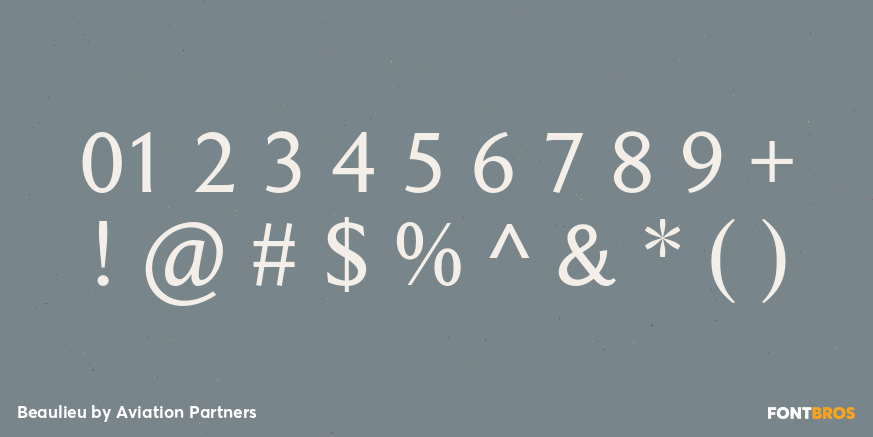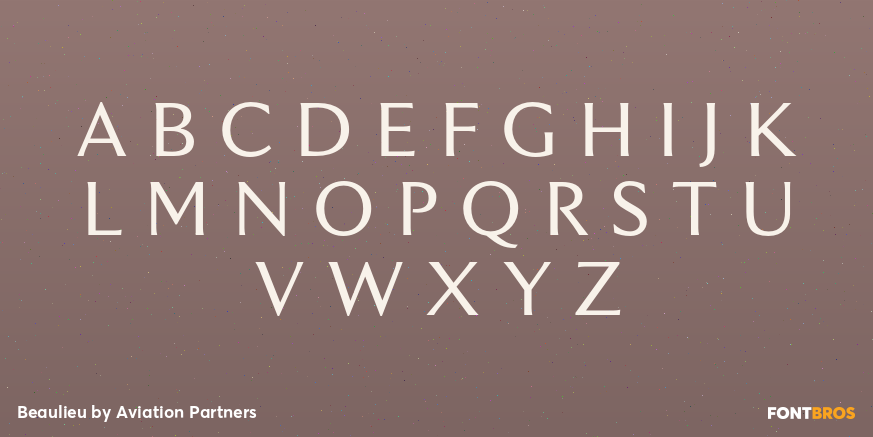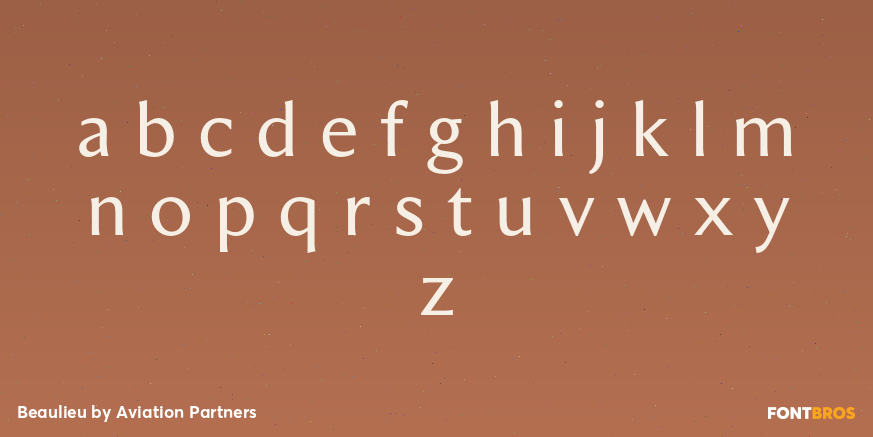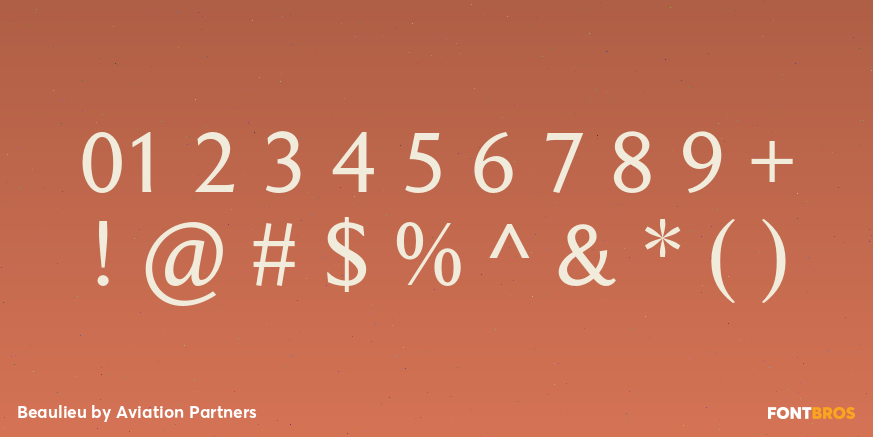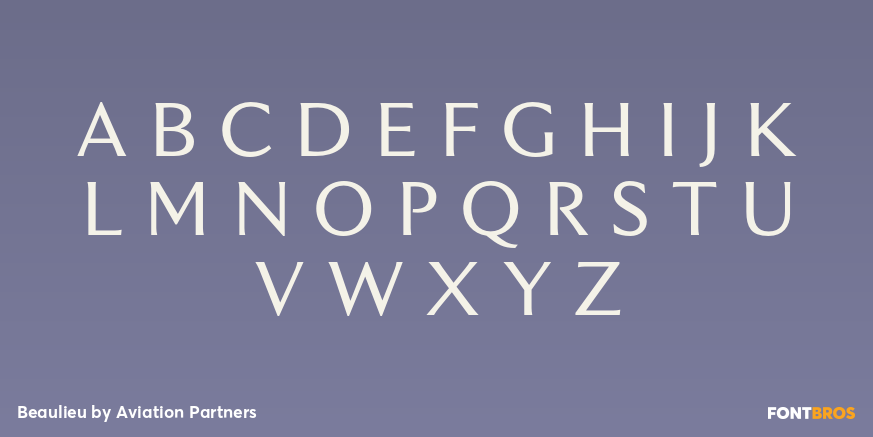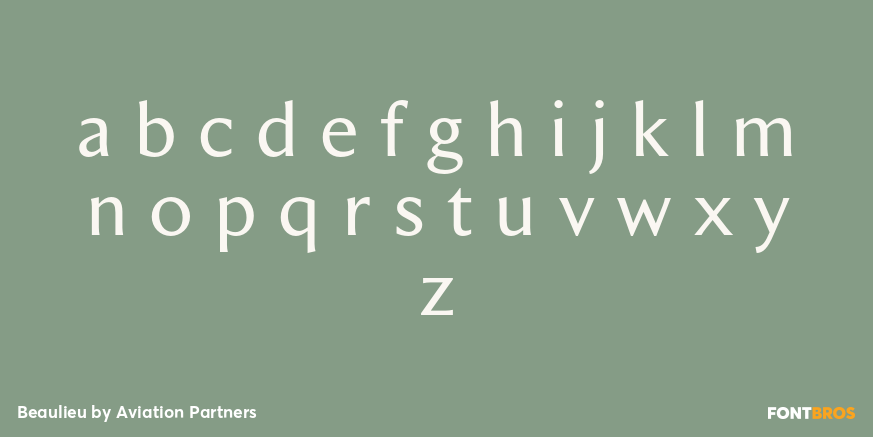
Beaulieu
Font Family by Aviation Partners
Buy NowWith only a suggestion of the serifs remaining, Beaulieu is modelled on traditional serif letterforms but with low-contrast stroke widths and a generous x-height. The family has a clean appearance and excellent readability. Six weights plus italics, small caps and extended language support make Beaulieu ideal for magazines, books and web ? wherever distinctive headings and a variety of text options are required.